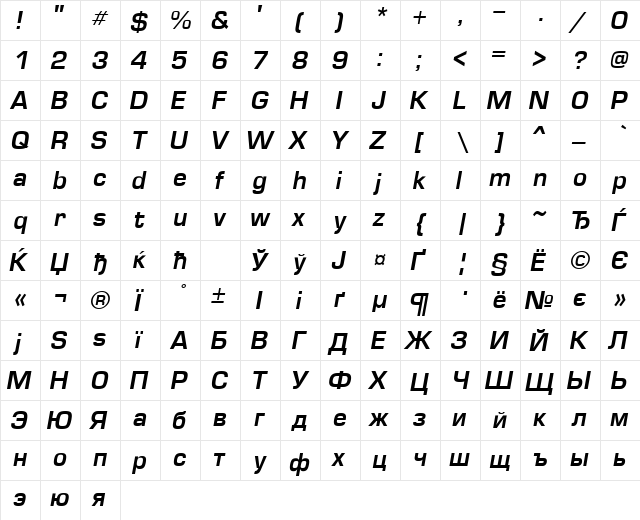
EuropeDemi Italic
Design Context for EuropeDemi Typeface
EuropeDemi takes a measured approach to typography — its balanced proportions and neutral character make it a reliable workhorse for both digital and print work. The dynamic lean of this cut emphasises speed and emphasis in any layout.